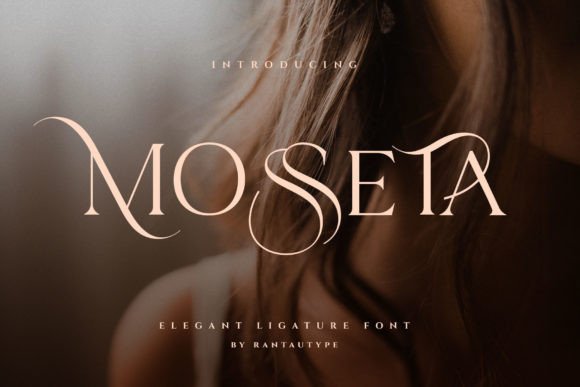
Introducing Mosseta Font, the epitome of elegance and class. This exquisite serif font, created by RantauType, is the perfect choice for anyone looking to elevate their business card game. With its delicate yet balanced appearance, Mosseta is the ultimate font to add a touch of sophistication to your projects.
The first thing that sets Mosseta apart is its versatility. Whether you're designing a business card for a corporate executive or a creative freelancer, this font effortlessly adapts to any style or industry. Its timeless appeal ensures that your card will make a lasting impression on potential clients and partners.
But Mosseta is more than just a pretty face. Its meticulous design and attention to detail guarantee legibility, even at small sizes. Your contact information will be effortlessly readable, ensuring that potential customers can easily get in touch with you. Don't let a poorly designed font hinder your business potential – choose Mosseta for its readability and professionalism.
What truly makes Mosseta stand out is its ability to evoke emotions. Its delicate curves and refined strokes evoke a sense of refinement and sophistication. Showcasing your business with Mosseta will make your brand memorable and leave a lasting impression on anyone who lays eyes on your card.
In conclusion, Mosseta Font is the perfect choice for anyone in search of the best fonts for a business card. Its elegant and balanced design, versatility, and ability to evoke emotions make it a must-have for any business owner or designer. Take your projects to the next level and leave a lasting impression with Mosseta – the font that enhances the beauty of your creations.